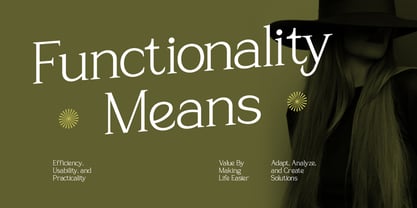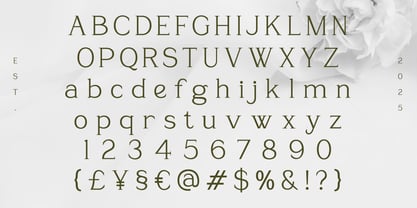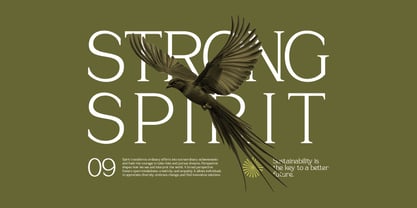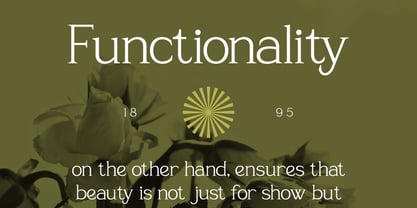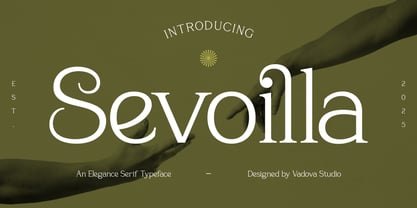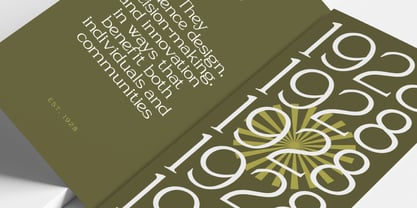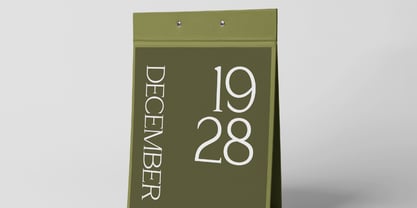
Sevoilla
Sevoilla is an elegant serif typeface with graceful curves and balanced proportions that express timeless sophistication. The letterforms feel calm, refined, and confident, combining classic serif structure with a modern aesthetic touch. Subtle contrast and smooth terminals give the font a clean yet luxurious presence. Sevoilla is crafted to deliver elegance, clarity, and harmony in premium typographic compositions. Sevoilla is perfect for luxury branding, editorial layouts, fashion and beauty visuals, wedding designs, logo identities, magazine headlines, packaging, book covers, invitations, portfolio presentations, website headers, and refined print or digital projects that require a calm and elegant serif character.